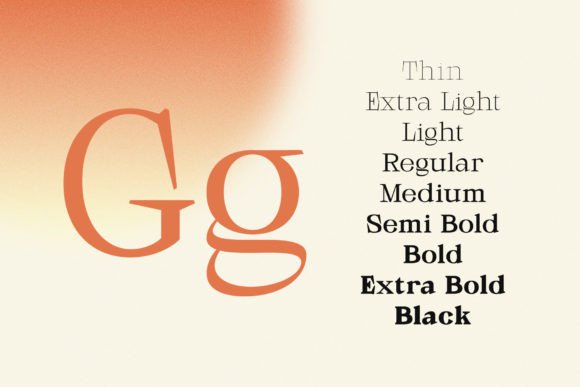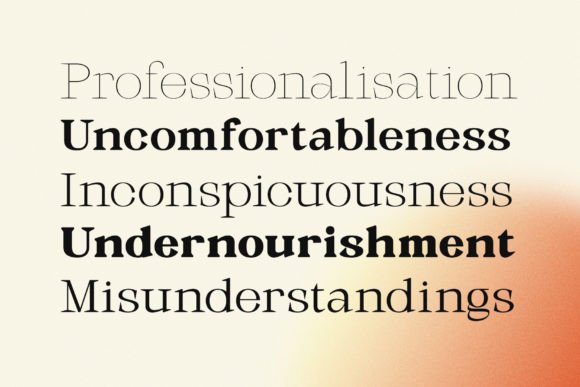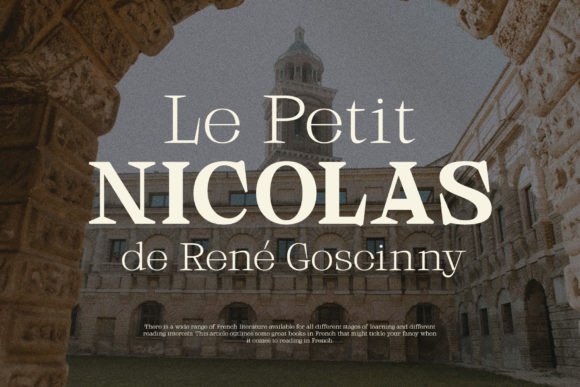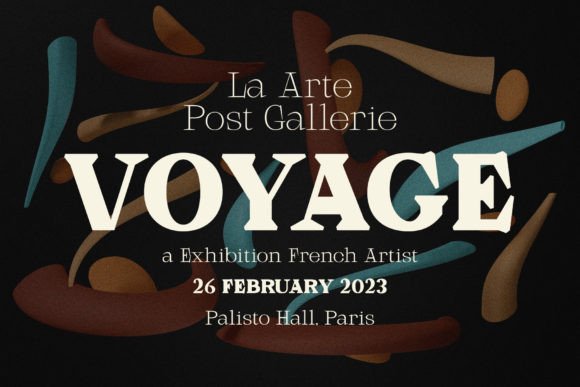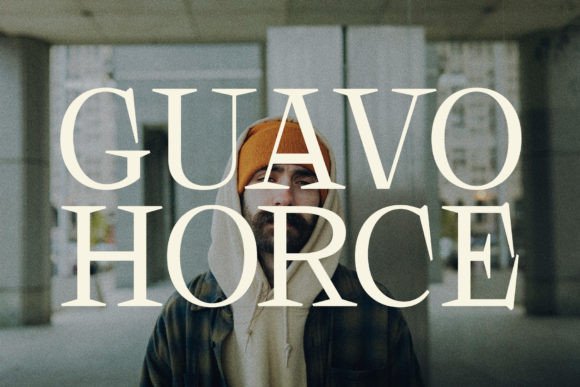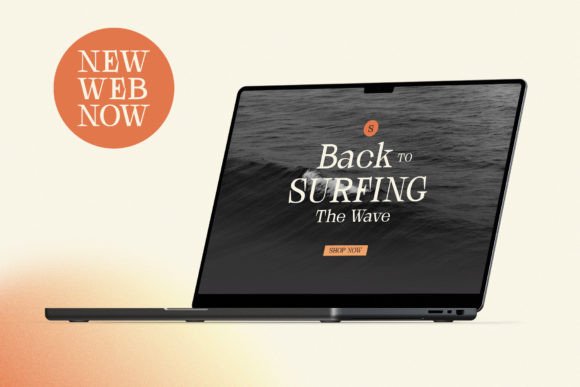
Introducing Galgey Font: The Epitome of Timeless Elegance and Contemporary Sophistication
In the realm of typography, few fonts manage to strike a balance between classic sophistication and modern flair. However, Galgey Font stands out as a beacon of elegance, perfectly marrying the refinement of traditional serif fonts with the sleekness of contemporary design. This modern serif font is not just a typeface; it’s an experience, designed to elevate your branding, packaging, and editorial designs to new heights of luxury and sophistication.
The Essence of Galgey Font
Galgey Font boasts refined lines and sleek curves that exude a sense of high-end quality. Its design is meticulously crafted to offer a versatile yet distinctive look that can be seamlessly integrated into various design projects. Whether you’re working on luxury branding, high-end product packaging, or editorial content that demands a touch of class, Galgey Font is the perfect choice. Its elegant serifs and balanced proportions make it not only aesthetically pleasing but also highly legible, ensuring that your message is conveyed with clarity and style.
Applications of Galgey Font
The versatility of Galgey Font makes it suitable for a wide range of applications. Here are a few ways you can leverage this beautiful font to enhance your designs:
- High-End Branding: Create a lasting impression with your brand identity by using Galgey Font in your logos, business cards, and letterheads. Its sophisticated look is sure to communicate your brand’s commitment to quality and excellence.
- Luxury Packaging: Elevate your product packaging with a touch of elegance. Galgey Font can be used to beautifully showcase product names, descriptions, and brand stories, making your products stand out on the shelves.
- Editorial Design: Add a touch of class to your editorial designs, such as magazines, newspapers, and digital publications. Galgey Font’s readability and aesthetic appeal make it an excellent choice for body text and headlines alike.
Why Choose Galgey Font?
Galgey Font is more than just a typeface; it’s a design statement. Here are a few reasons why designers and crafters are gravitating towards this elegant serif font:
- Timeless Appeal: Unlike trendy fonts that may quickly become outdated, Galgey Font’s classic elegance ensures it remains relevant for years to come.
- Versatility: Its wide range of applications makes it a valuable addition to any designer’s toolkit.
- Legibility: The font’s clear and balanced design ensures excellent readability, even at smaller sizes.
- Customization: Galgey Font comes with a range of weights and styles, allowing for complete creative control over your typography.
Tips for Using Galgey Font Effectively
To maximize the impact of Galgey Font in your designs, consider the following tips:
- Pair it with Simplicity: Let Galgey Font be the focal point of your design. Pair it with simple backgrounds or graphics to avoid visual clutter.
- Experiment with Weights: Use different weights of Galgey Font to create visual hierarchy and add depth to your designs.
- Consider Contrast: Play with contrasting colors to make your text stand out, especially when using Galgey Font for headlines or key messages.
Galgey Font represents the perfect blend of timeless elegance and contemporary sophistication, making it an indispensable asset for designers aiming to create high-end branding, luxury packaging, and editorial designs. Its refined lines, sleek curves, and versatile nature ensure that your designs not only look stylish and elegant but also communicate a sense of luxury and quality. Experience the transformative power of Galgey Font in your next design project and discover a new level of typographic excellence.